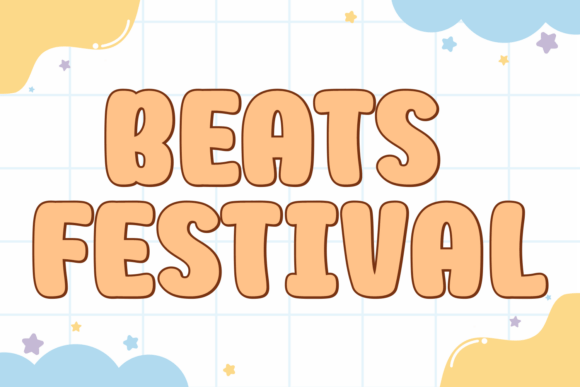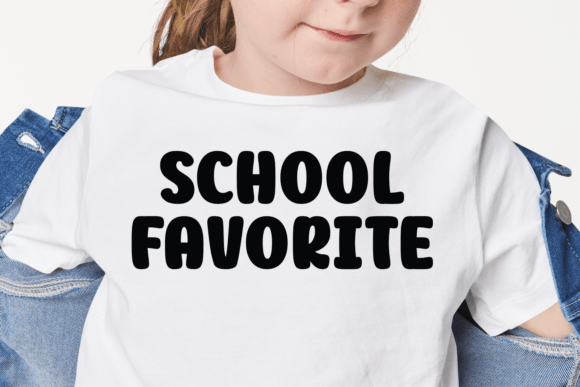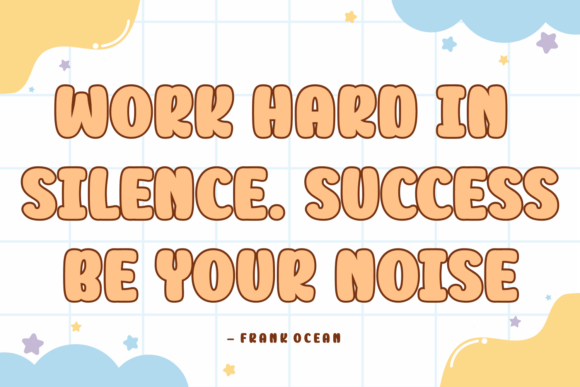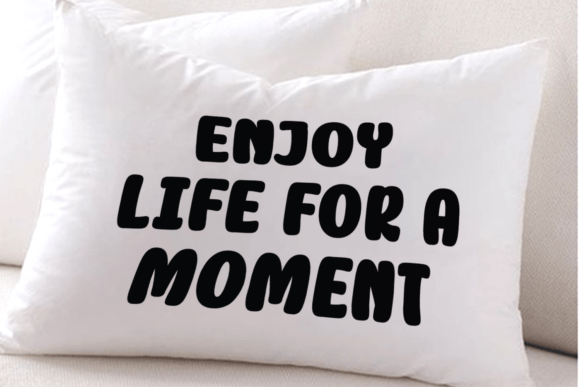
Discover the Magic of Magic Cloud Font
Have you ever found yourself staring at a blank canvas, waiting for the perfect font to bring your creative project to life? For many designers, the search for the ideal typography can be a daunting task. But what if I told you that there’s a font that can transport your designs to a whimsical world of wonder and magic? Enter the enchanting Magic Cloud Font, a bold and clean typeface that’s sure to captivate your audience.
With its smooth, rounded edges and transparent background, Magic Cloud Font is the perfect design resource for creatives who crave high-quality visuals. Whether you’re crafting book covers, magazine pages, or product packaging, this font is sure to add a touch of sophistication and elegance to your work. And the best part? You can download it for free, making it an invaluable addition to your design toolkit.
Key Features of Magic Cloud Font
- High-quality, vector-based design resource with a transparent background, perfect for creative projects.
- Unique, hand-drawn style with intricate details and subtle textures, adding a touch of elegance to any design.
- Perfect for use in graphic design, digital art, and other creative fields where a high-quality, customizable font is essential.
- Easy to customize and edit, with a simple and intuitive design that makes it easy to integrate into any project.
Honest Review: Magic Cloud Font
As a designer, I’m always on the lookout for high-quality design resources to elevate my creative projects. The Magic Cloud Font caught my eye with its unique and whimsical style, perfect for adding a touch of magic to any design.
Here are some things that work well about the Magic Cloud Font:
- ✨ Unique and creative style that adds a touch of magic to any design
- ✨ High quality and crisp typography that’s perfect for print and digital use
- ✨ Transparent background, making it easy to use in any design project
- ⚠️ Limited font weights and styles, which may not be suitable for all design projects
- ⚠️ May not be as versatile as some other fonts, which could limit its use in certain designs
Overall, I’m impressed with the Magic Cloud Font and would definitely consider using it in future design projects. While it may have some limitations, its unique style and high quality make it a valuable addition to any designer’s toolkit.
The Magic Cloud Font is ideal for creative projects, such as brochures, posters, and business cards. It’s also great for designing websites, social media graphics, and presentations. With its transparent background and high-quality design, the Magic Cloud Font is a versatile and useful design resource that can be used in a variety of contexts.